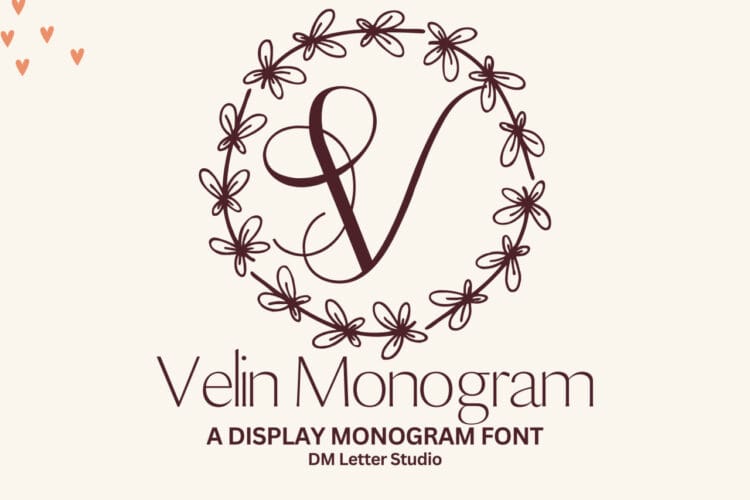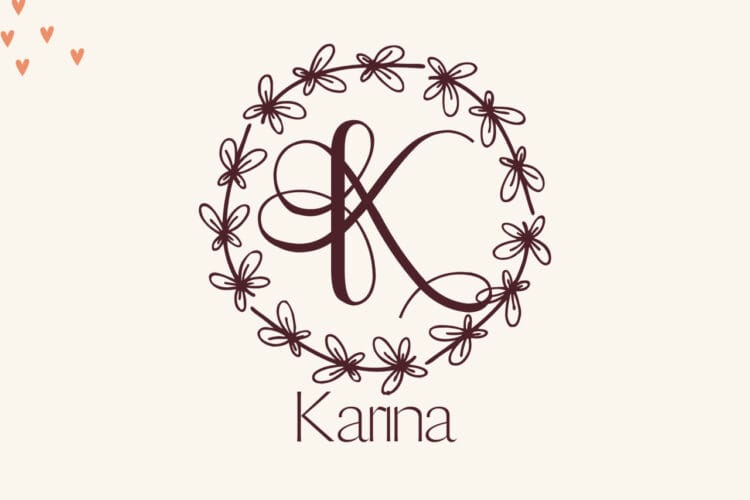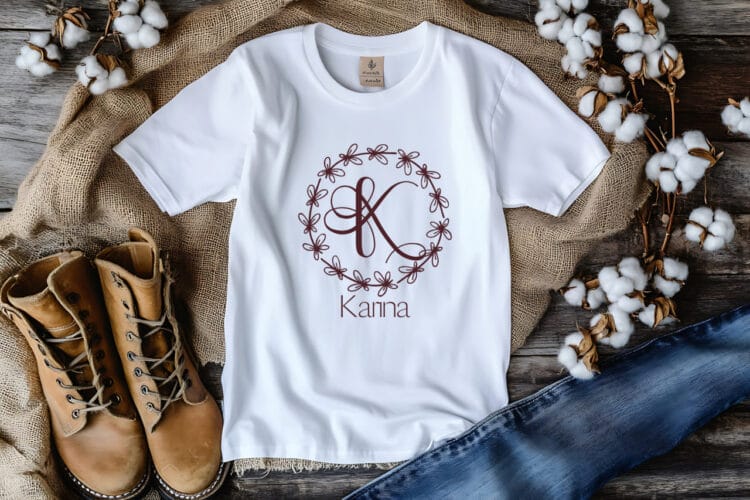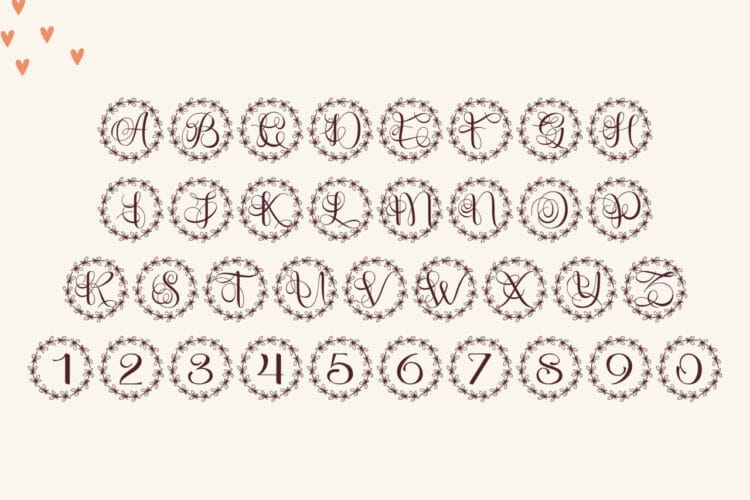
Meet Velin, the Monogram Font
Velin Monogram turns initials into clean, refined emblems with a smooth, contemporary character. The design focuses on elegant simplicity, with balanced curves and confident structure that feel modern yet timeless. Each letter stays sharp at any size, so small tags remain clear while larger designs look polished and professional. Use Velin for modern weddings, boutique branding, stationery, logo marks, and luxury packaging. As a result, your designs feel calm, premium, and easy to style across many projects.
Fast layouts with the Velin Monogram Font
Start with a central initial and let negative space enhance the form. After that, add names or dates using a soft serif or clean sans serif. Because Velin holds its shape at small sizes, labels, stickers, cards, and tags stay crisp and readable. In addition, it works beautifully with thin frames, subtle borders, grid layouts, and minimal decorative accents. Finally, save color palettes like black and ivory, stone and sand, sage and cream, or charcoal and soft gold to reuse across collections.
Creative uses and quick wins
Modern wedding monograms and invitation covers
Logo marks, brand seals, and certificates
Gift tags, stickers, and minimalist packaging
Labels for skincare, perfume, candles, and lifestyle goods
Design tips for Velin Monogram Font
Keep the monogram as the focal point and avoid overcrowding it with decoration. Also, allow generous spacing so details stay sharp at small sizes. For a premium finish, try foil stamping or embossing on smooth stock. Finally, export at 300 DPI for print and at 2× size for web so edges remain clean on every surface.